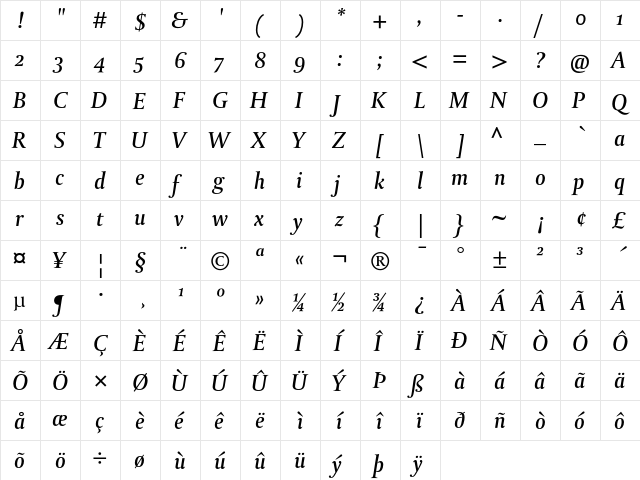
DTL Paradox ST Medium Italic
Design Context for DTL Paradox Typeface
DTL Paradox is a composed and adaptable typeface that performs quietly and consistently across a wide range of design contexts. The dynamic lean of this cut emphasises speed and emphasis in any layout.
Pro Tip: Use DTL Paradox for emphasis, pull quotes, and subheadings where its slanted energy can add rhythm to the layout.